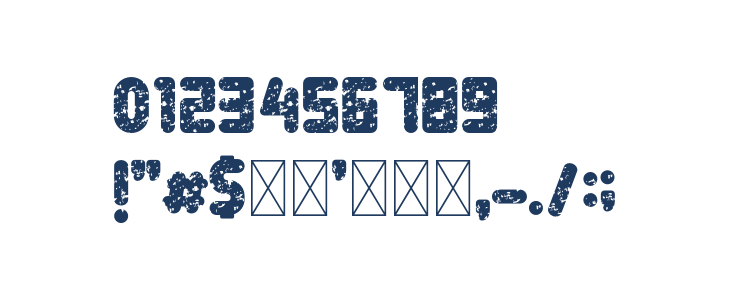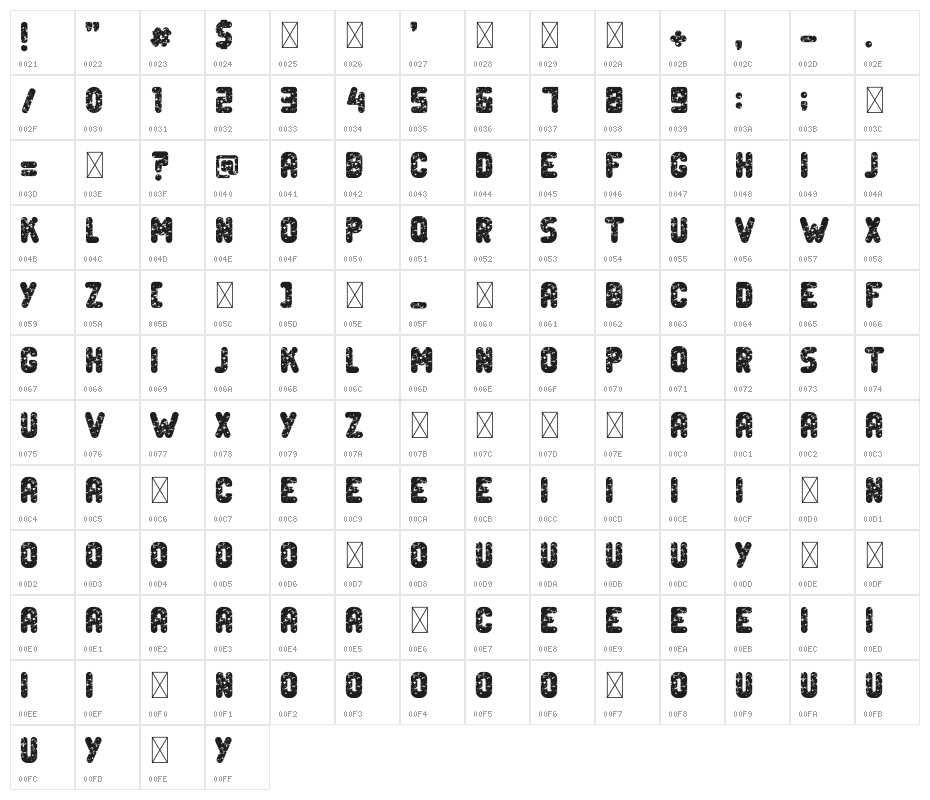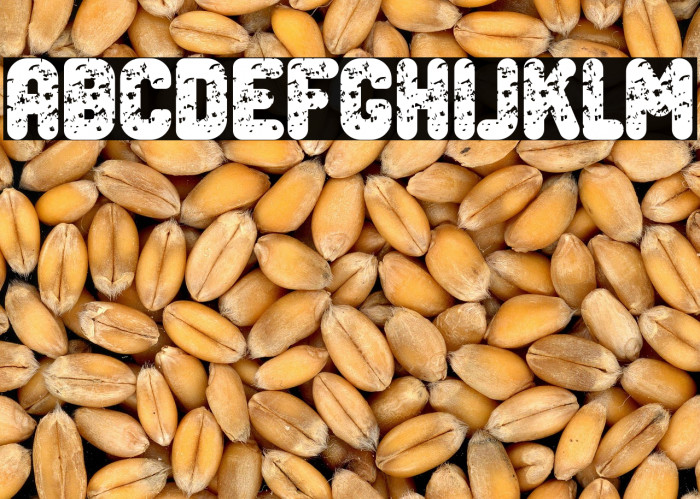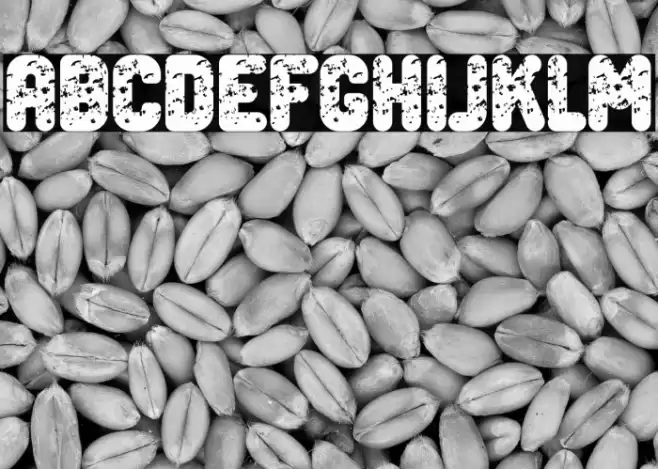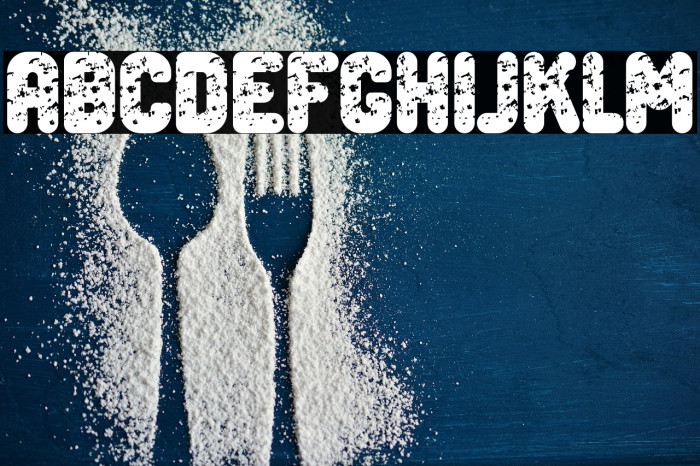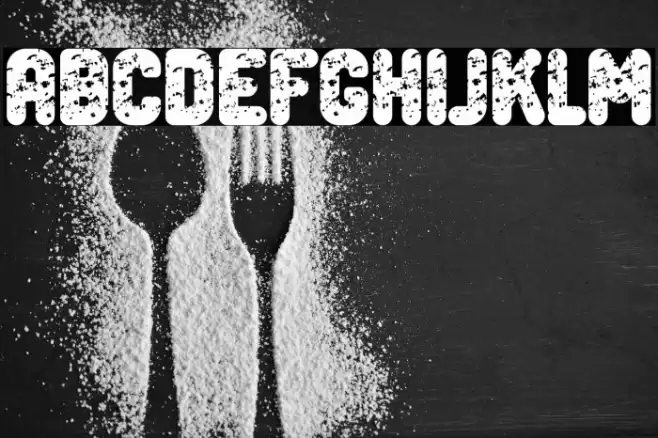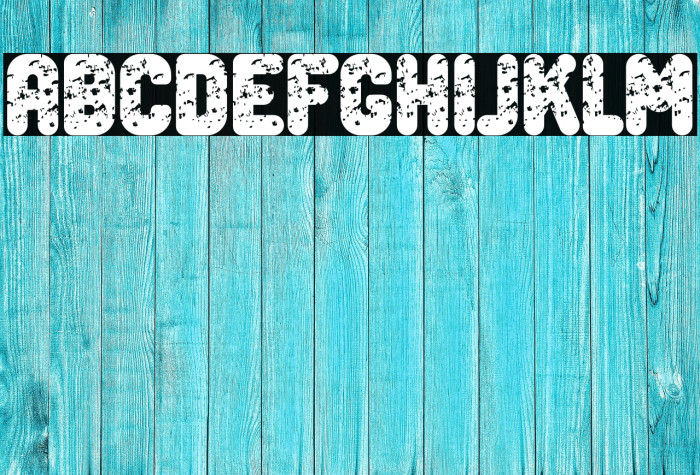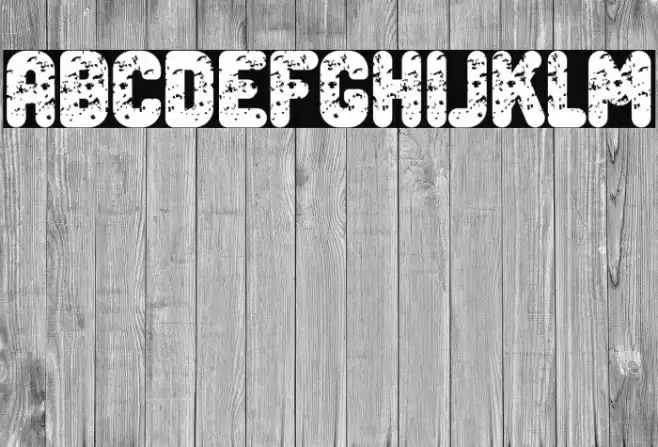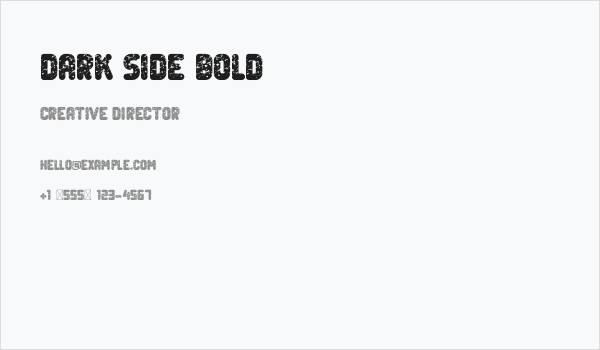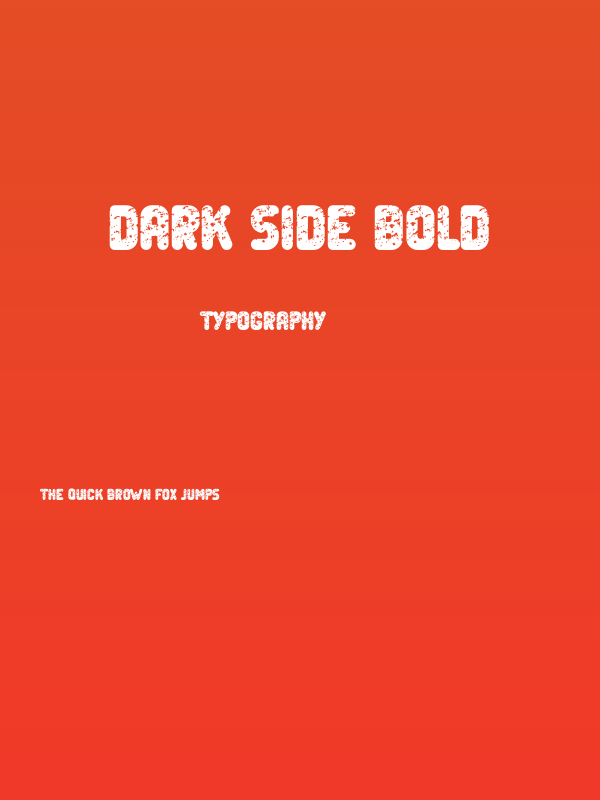
Dark Side Bold Font
Dark Side Bold Description
This font features a bold, distressed style with a textured appearance that gives it a rugged, worn look. The characters are thick and blocky, with a consistent width and rounded edges that soften the overall impact. The distressed texture is applied uniformly across all characters, creating a cohesive look that suggests a vintage or grunge aesthetic. This font is highly decorative, making it ideal for designs that require a strong visual impact. The uppercase letters are prominent, and the numbers and special characters maintain the same distressed style, ensuring versatility in various design contexts.
| Proposed Projects | Ideal for posters, album covers, branding for edgy products, or any project needing a bold, vintage look. |